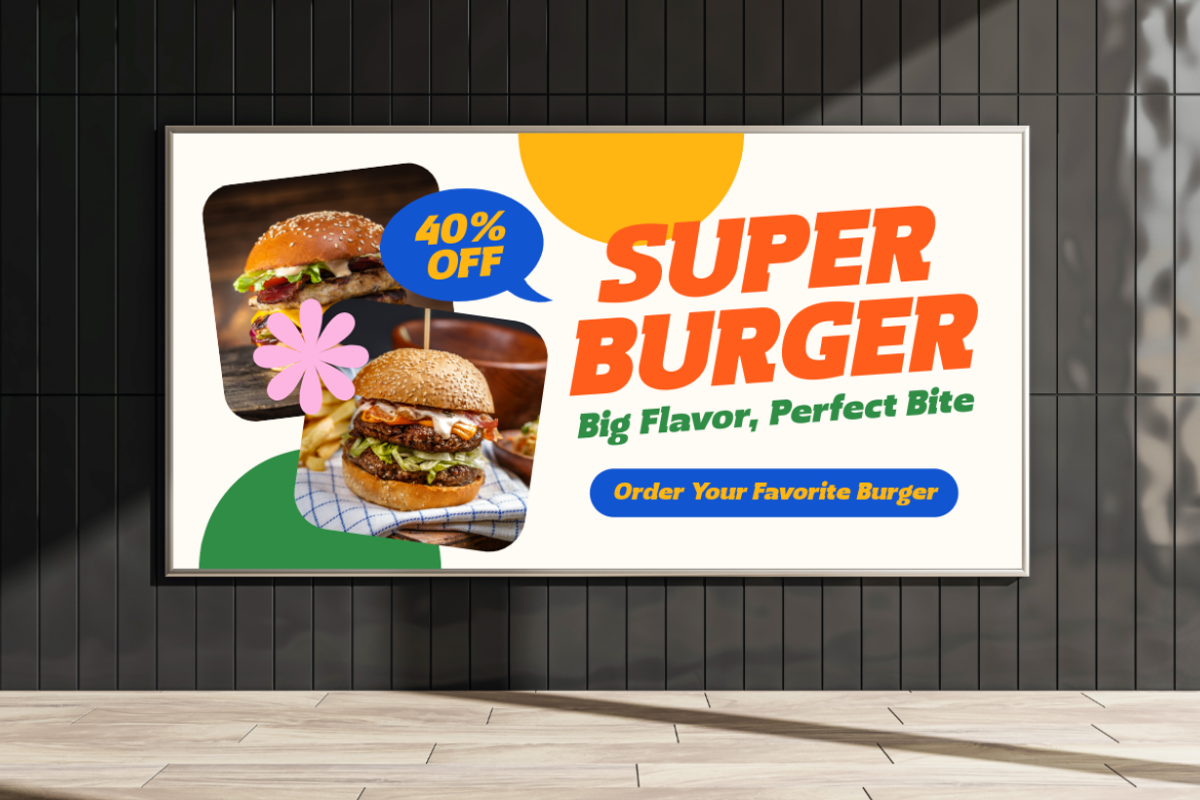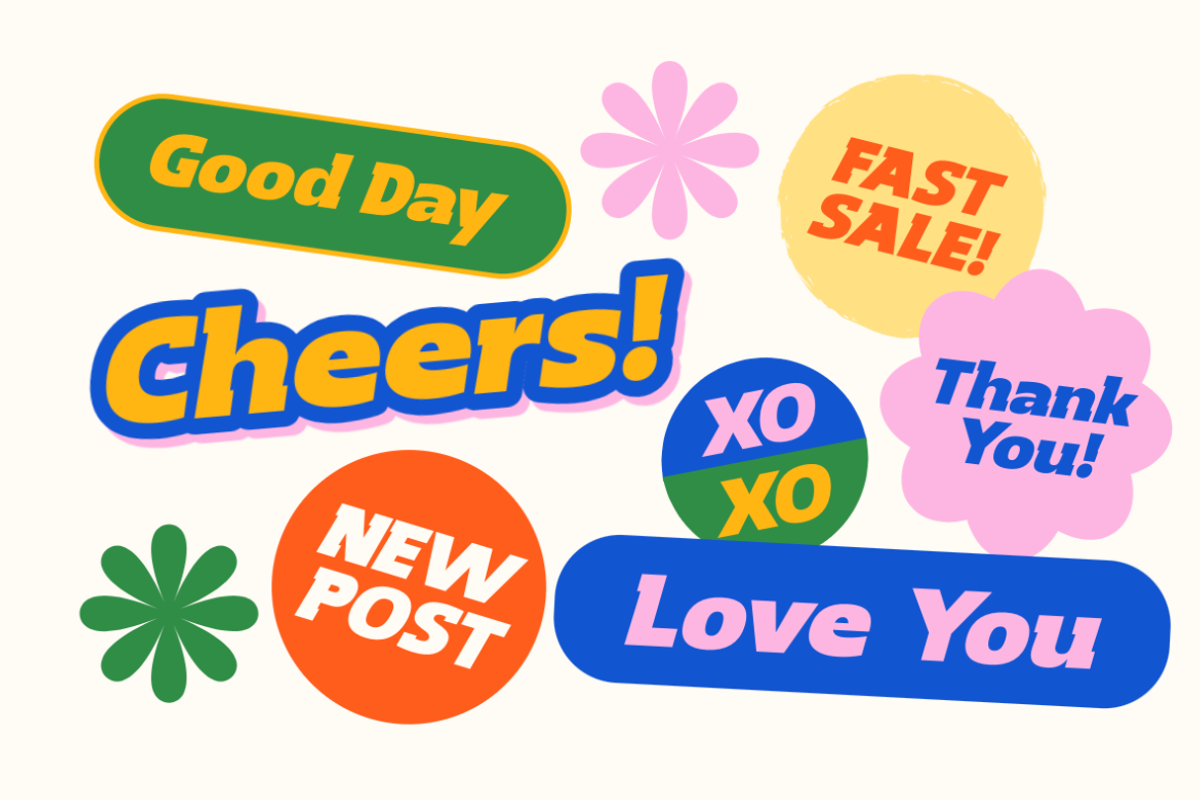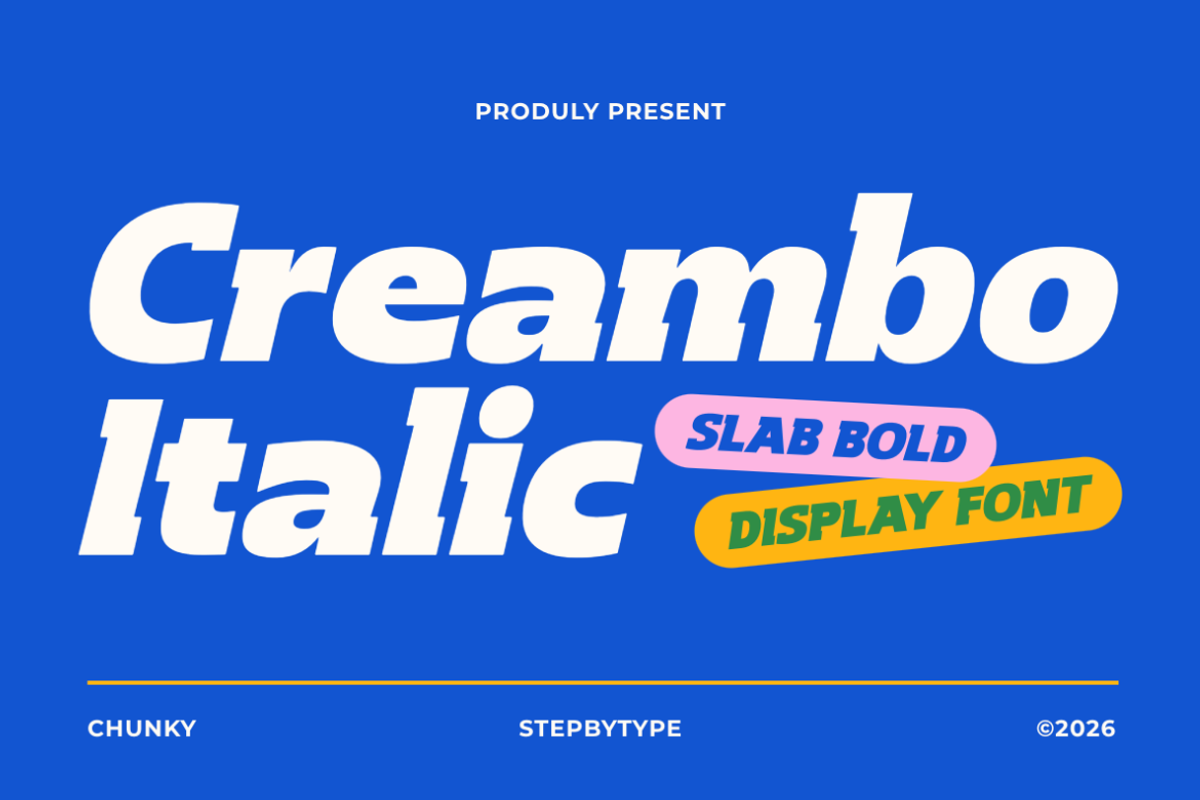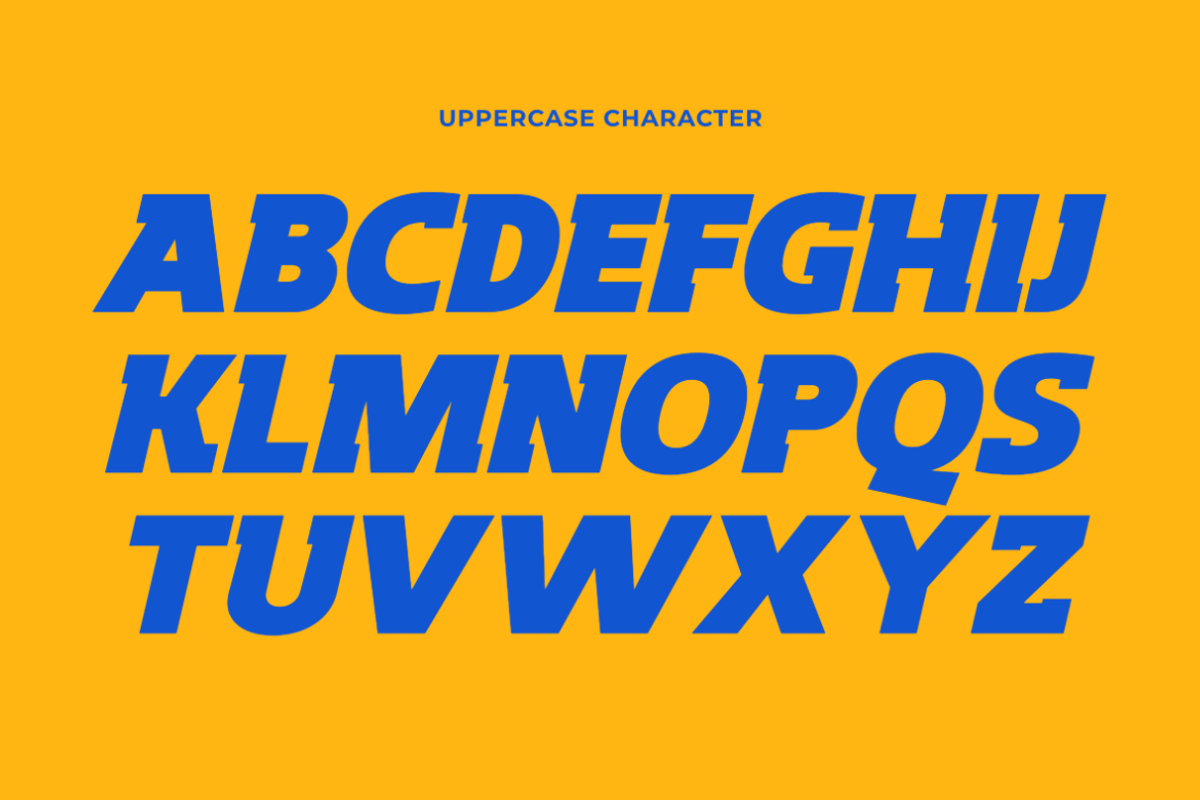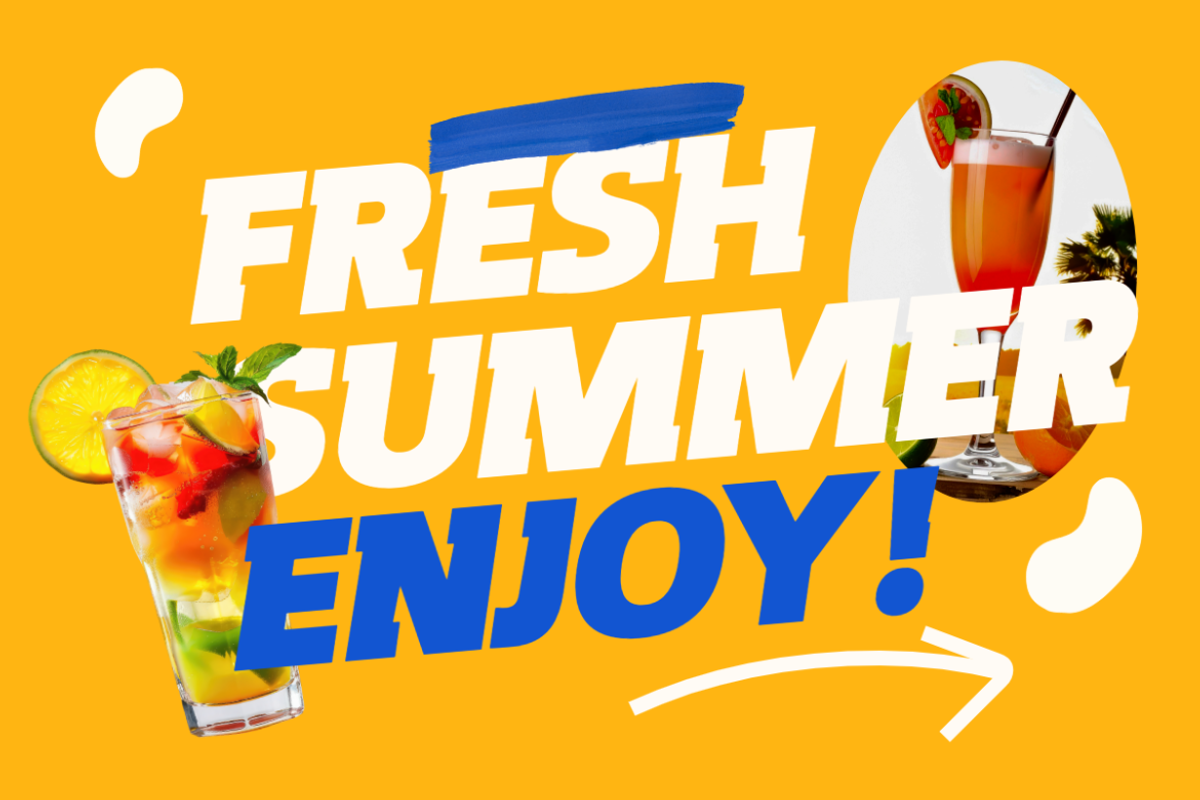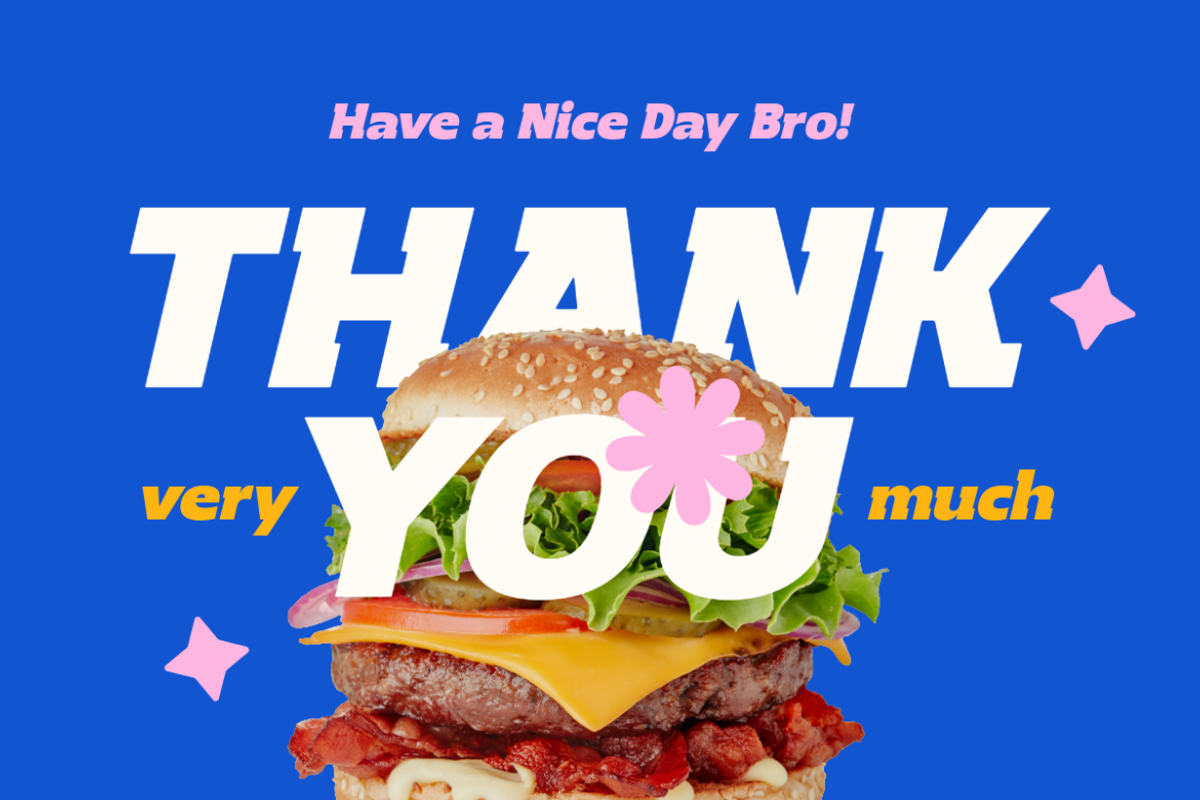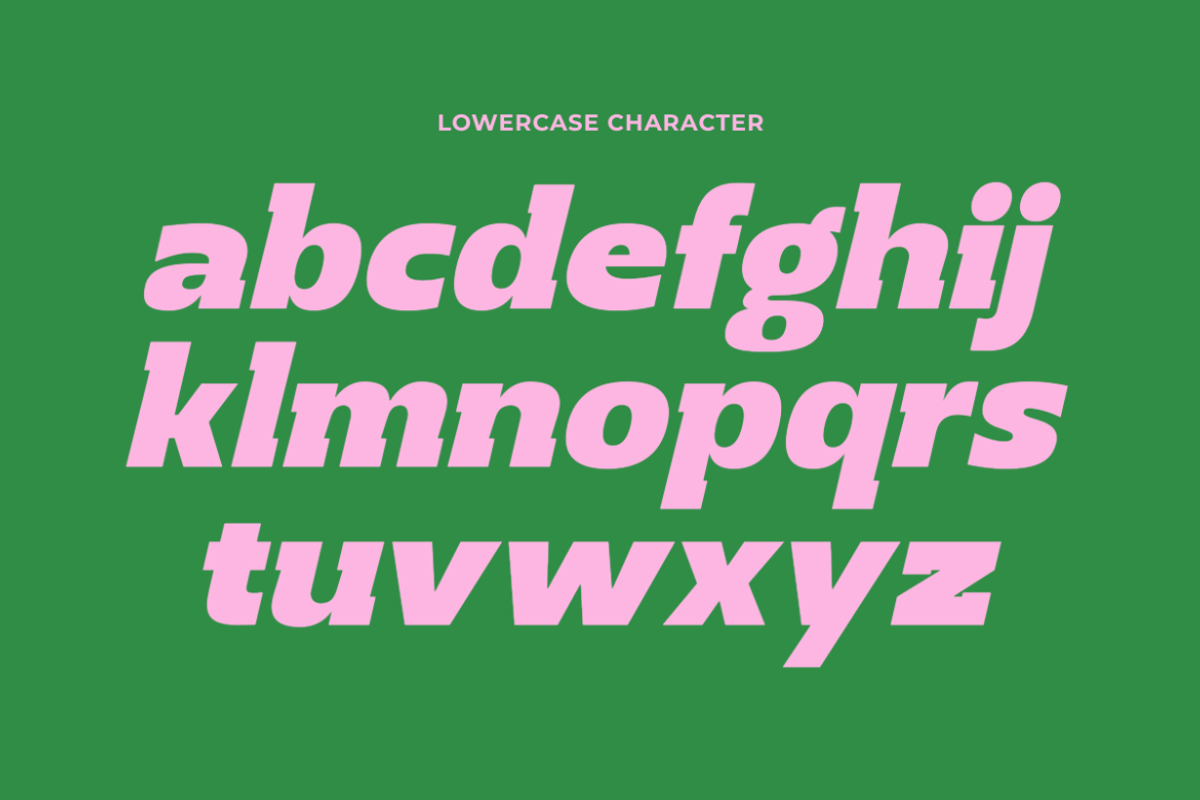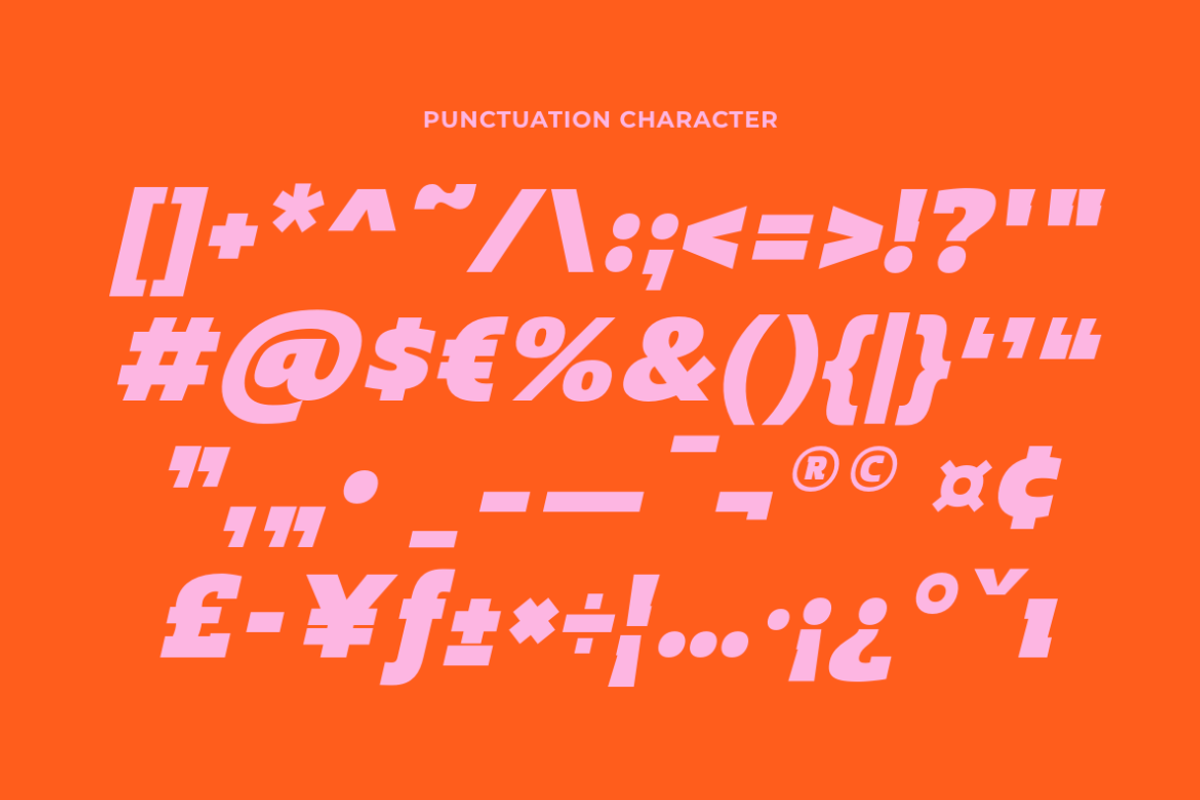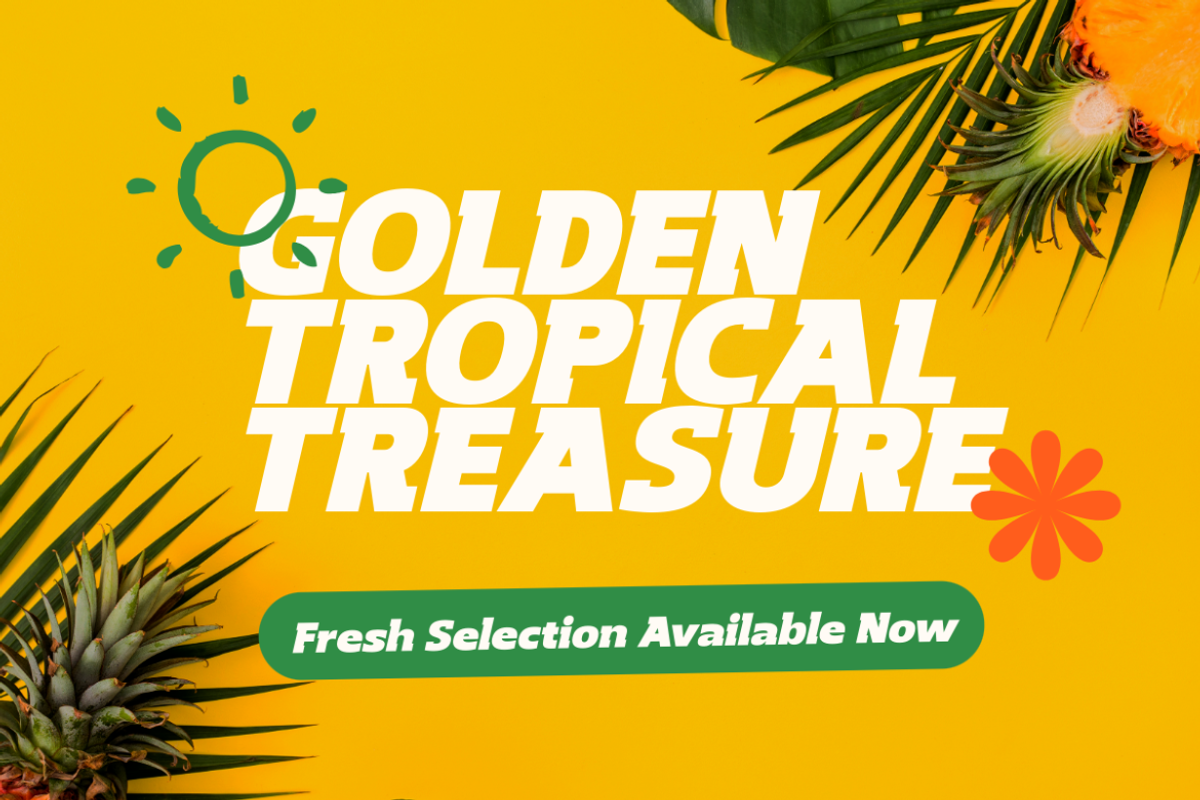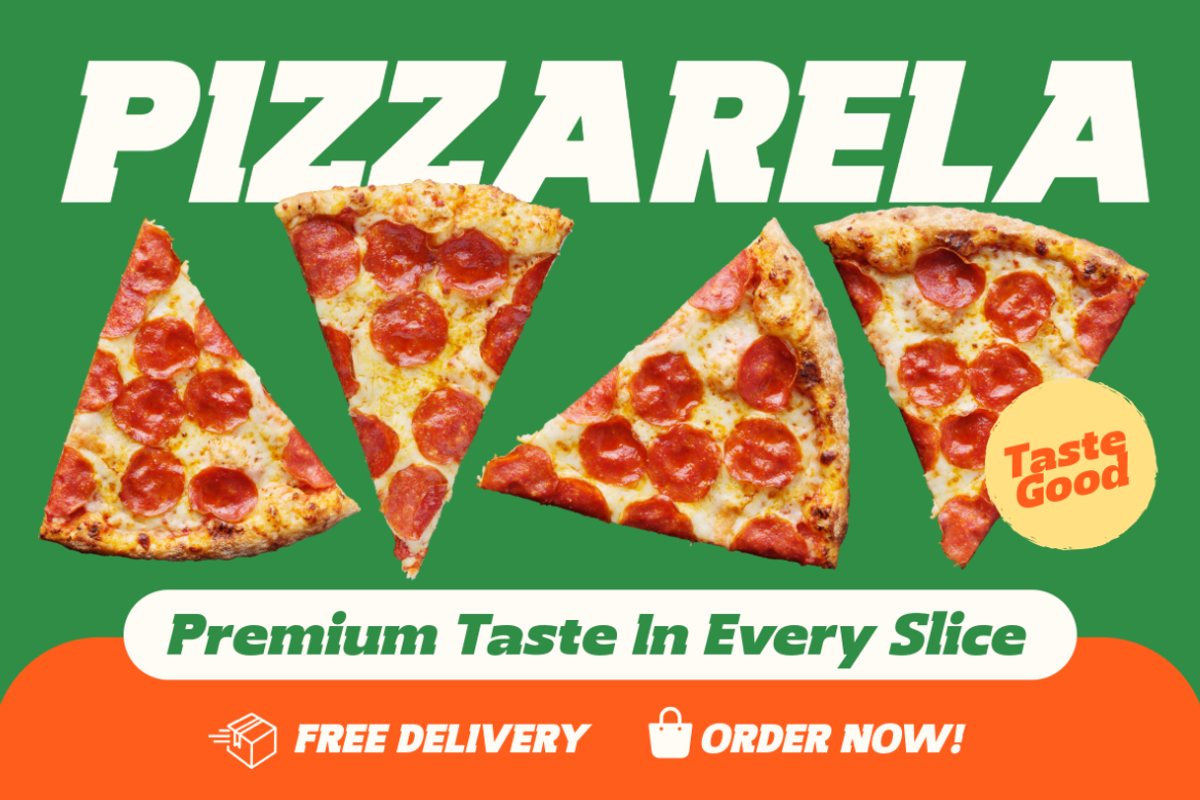
Creambo Italic
A bold and energetic italic display font featuring chunky letterforms, strong geometric proportions, and a distinctive forward slant. Crembo Italic combines a retro-inspired display character with a modern commercial feel, creating typography that feels confident, lively, and expressive. Its heavy forms make headlines highly visible, while the italic construction adds movement and a sense of speed. Ideal for food branding, posters, packaging, promotional campaigns, and playful lifestyle designs.
Font Characteristics
Bold and heavy letterforms
Strong italic/slanted structure
Chunky, compact proportions
Slab-inspired display appearance
Rounded and sturdy forms
Energetic visual rhythm
Retro-modern personality
High-impact headline style
Strong presence at large sizes
Playful but confident character
Recommended Uses
Food & beverage branding
Restaurant advertisements
Burger and pizza branding
Food packaging
Promotional posters
Sale & discount graphics
Café branding
Social media campaigns
Sports-inspired branding
Event posters
Logo and headline design